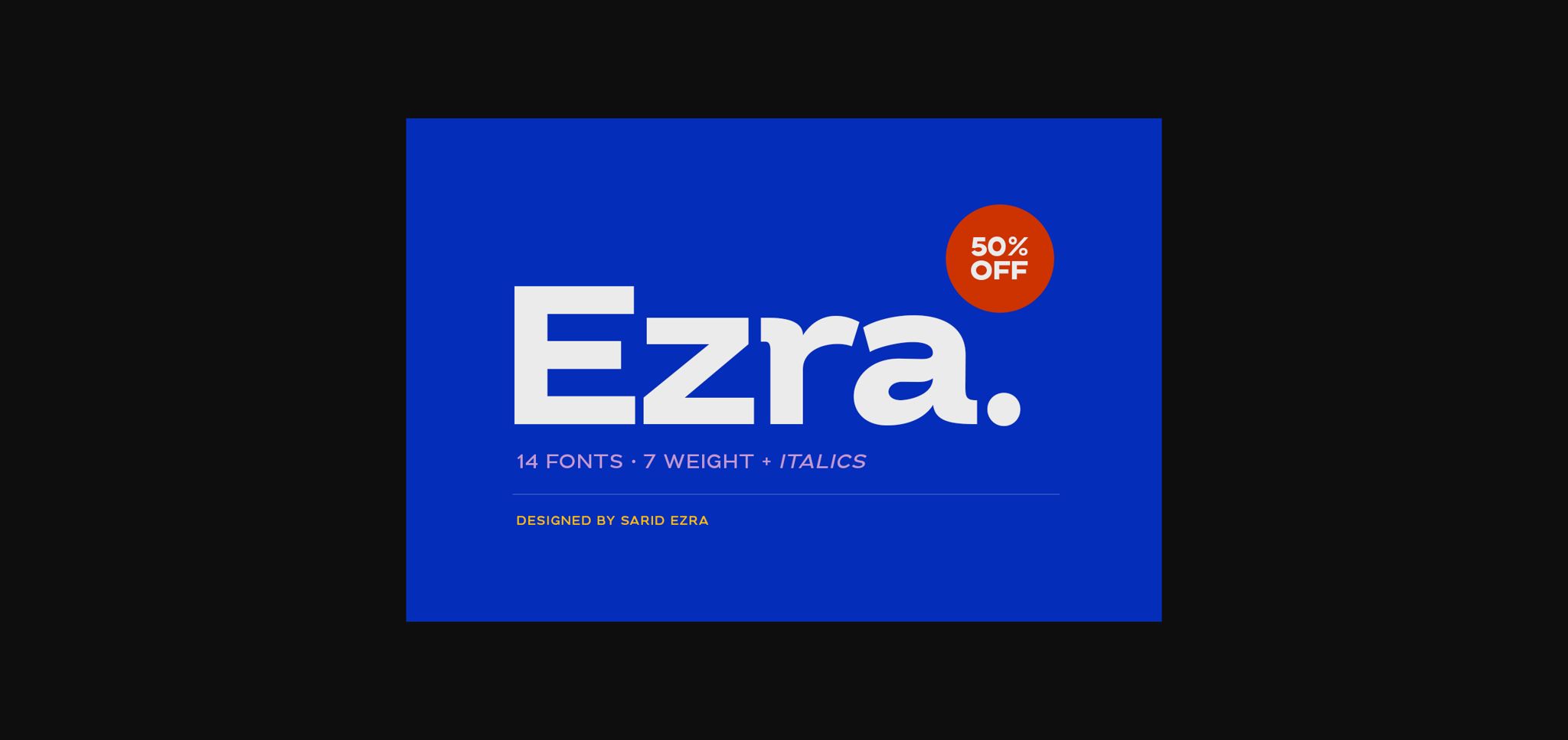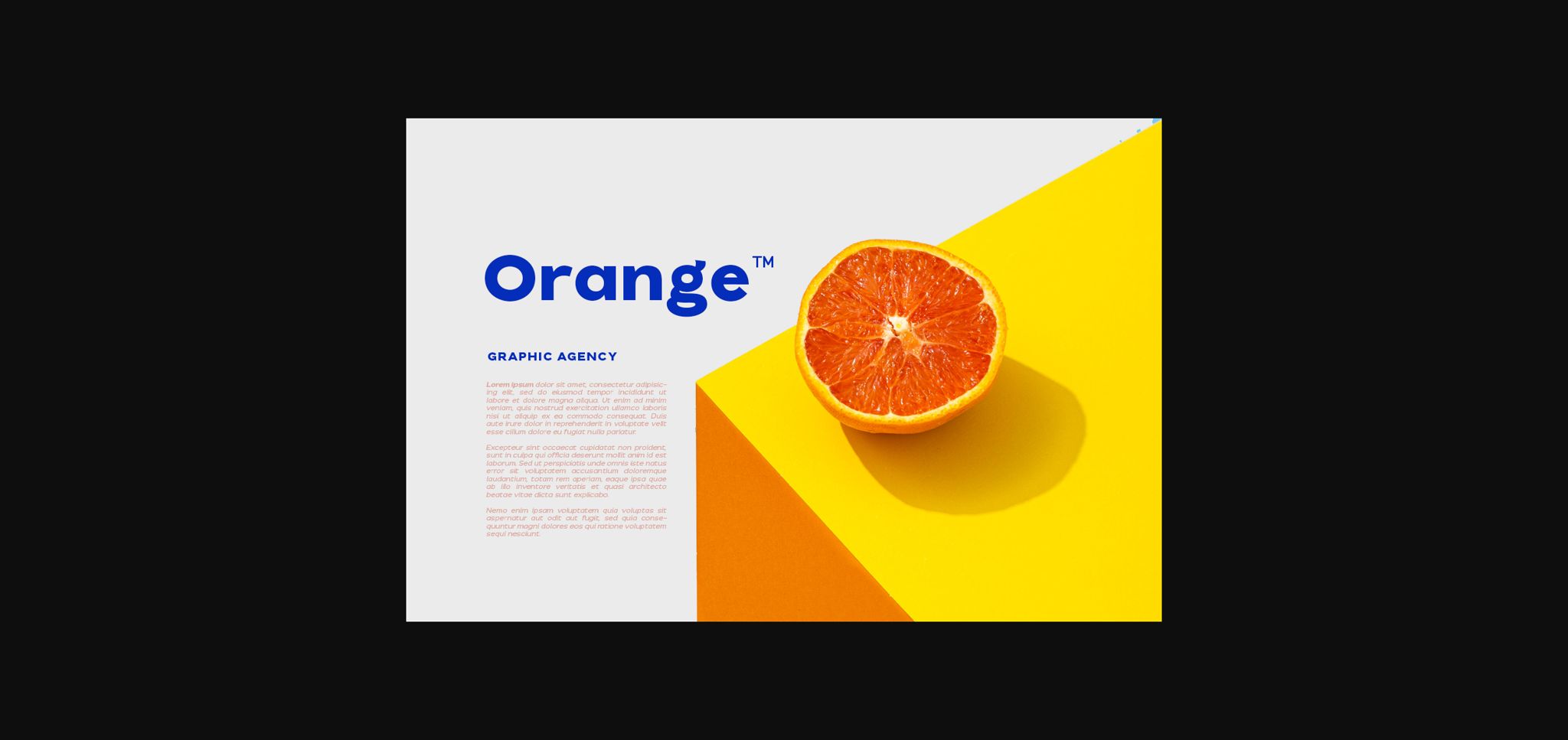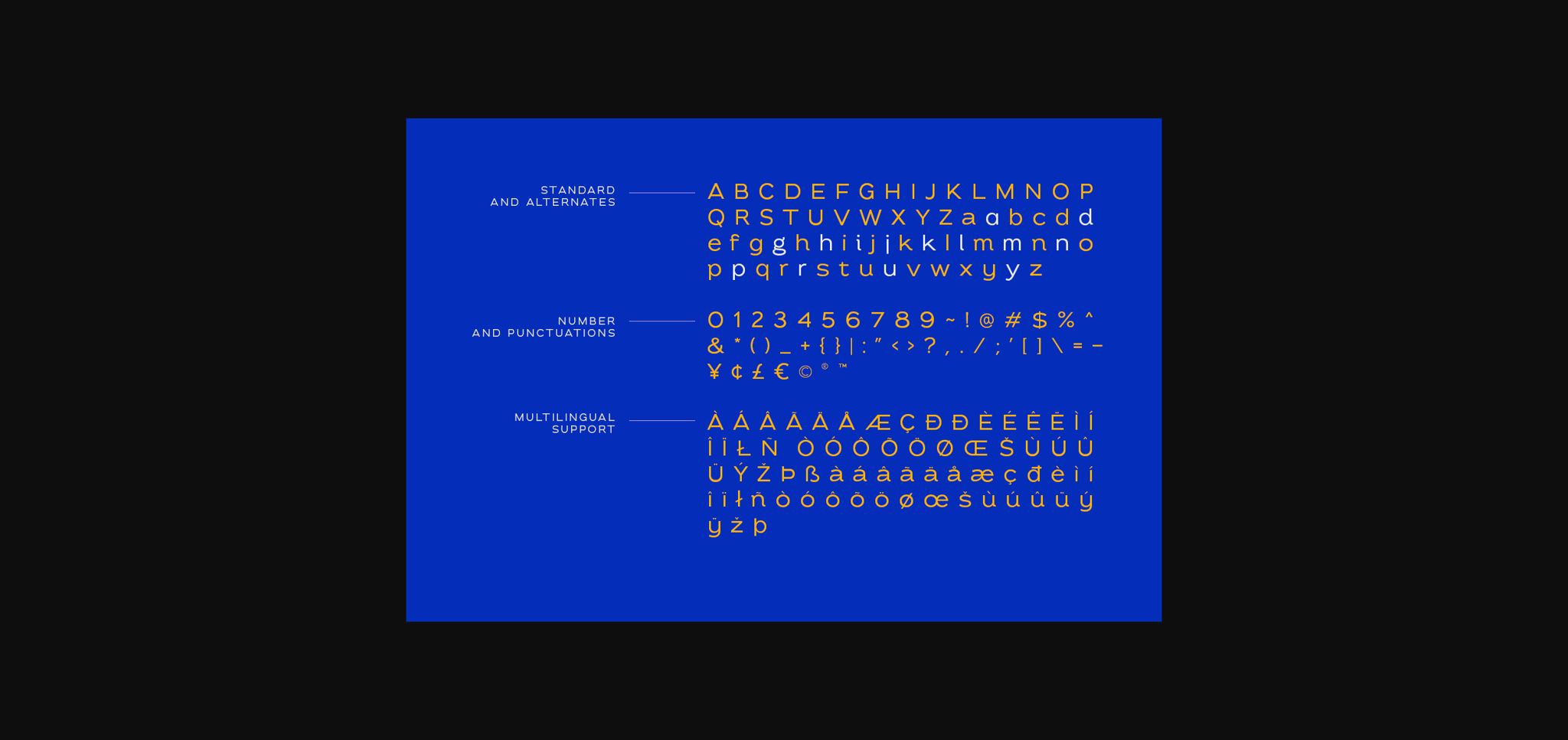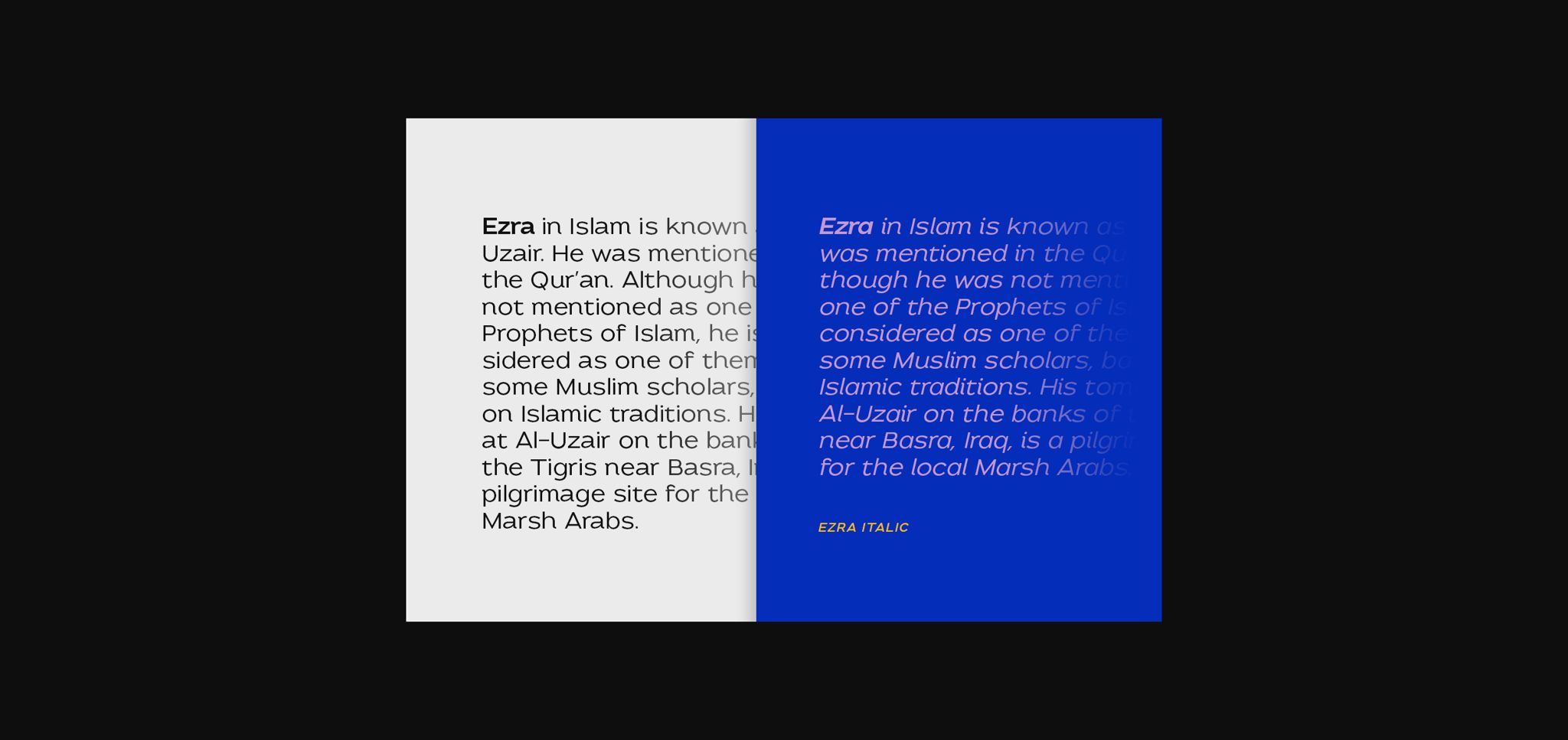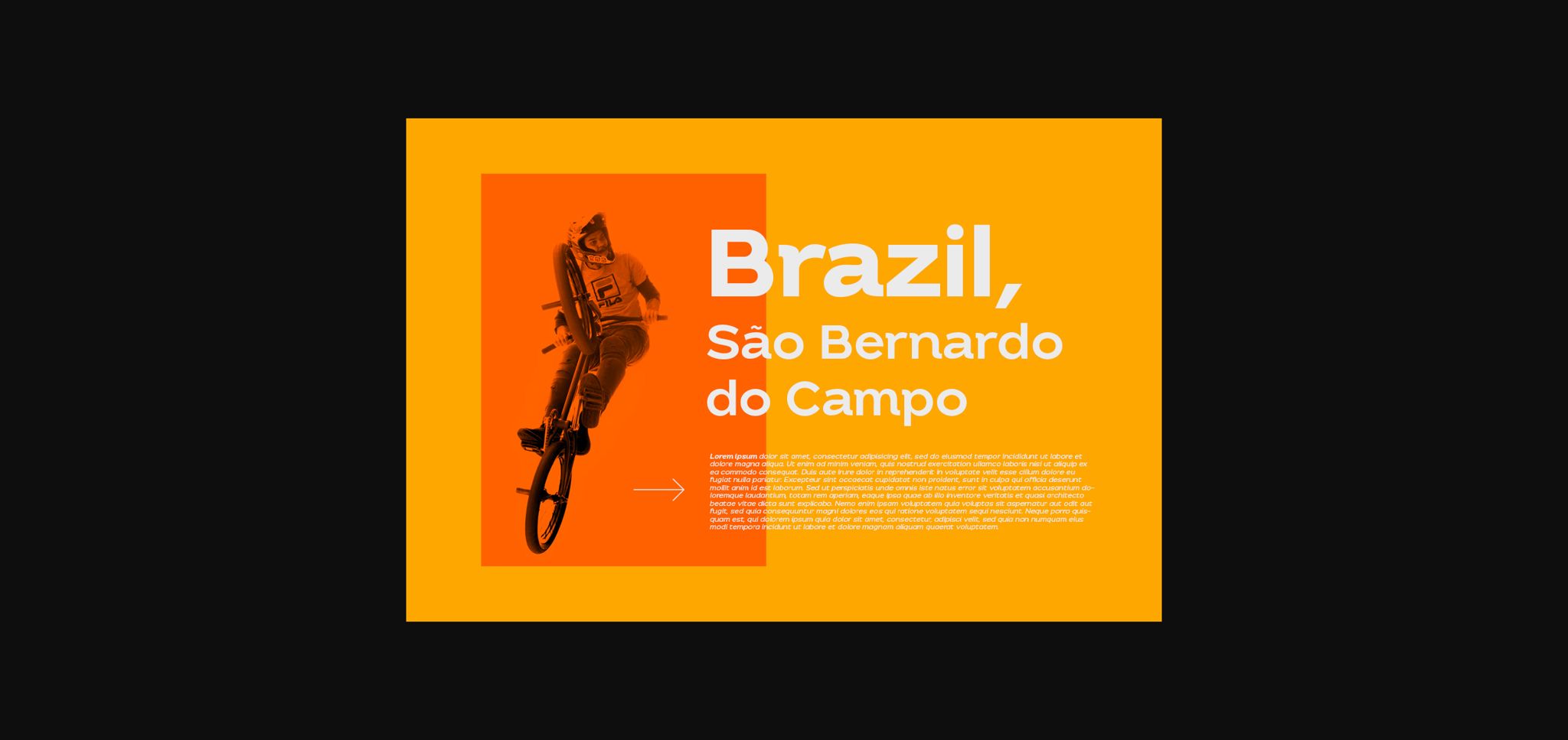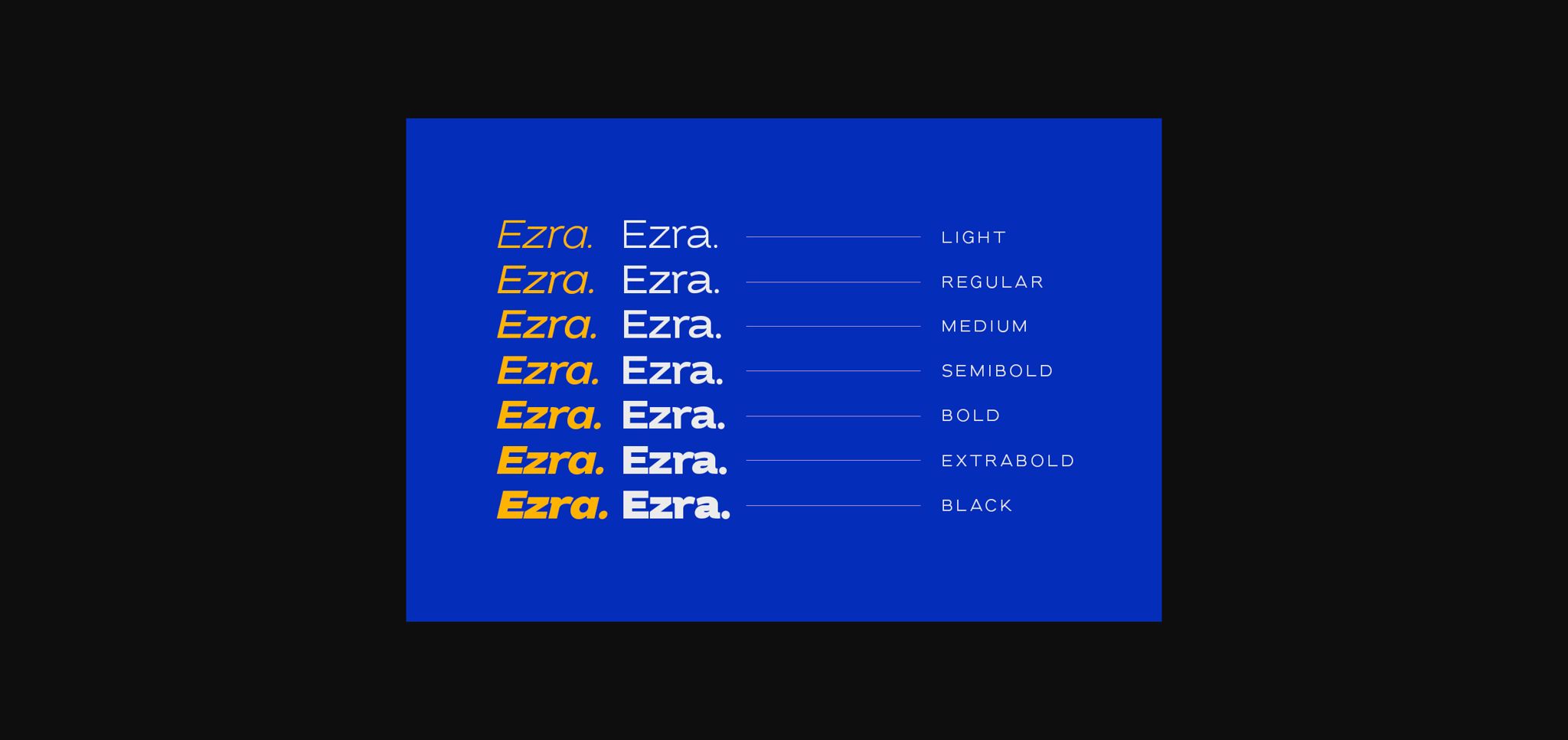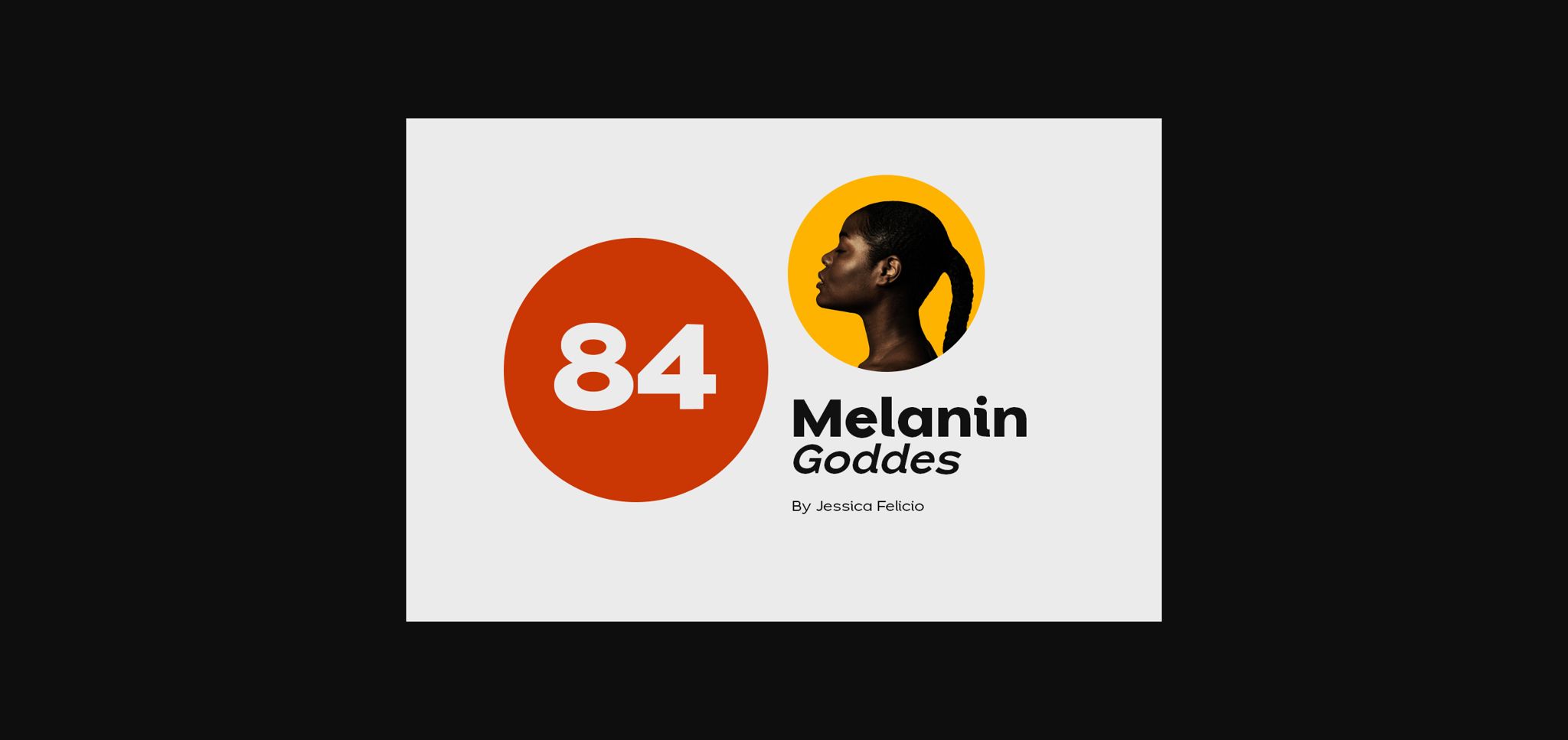
About Ezra Font
Ezra is a bold and modern sans serif font. Ezra will look outstanding in any context, whether it’s being used on busy backgrounds or as a standalone headline!